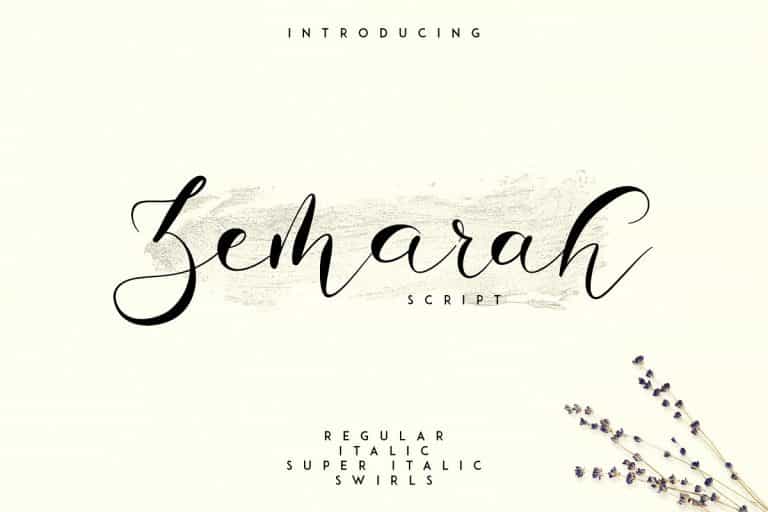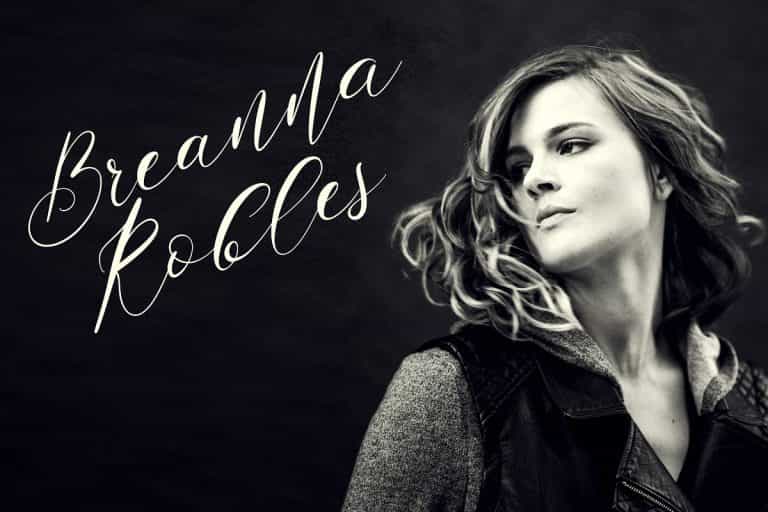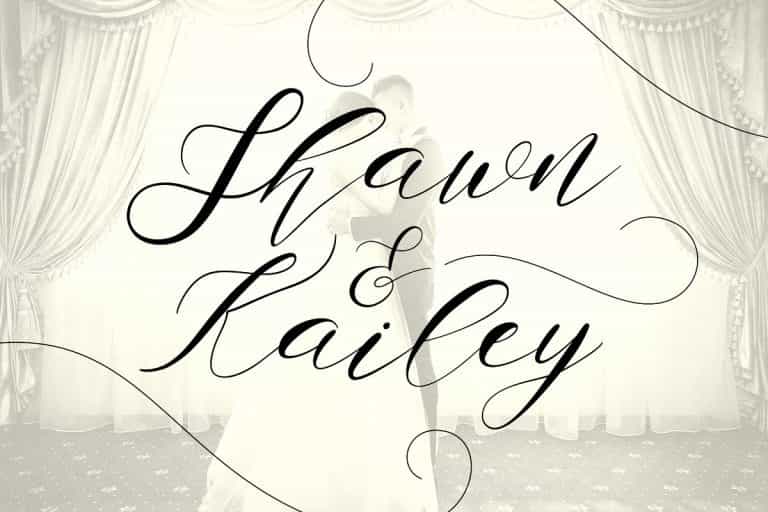
Zemarah Font is a new, clean and handmade calligraphy font made by VPcreativeshop. A hand written like that is just and classy font. Zemarah is not just a simple, elegant typeface with 3 styles but it also has swirls and multilingual support. It is a very universal font which can be used in both large and small sizes. Zemarah is the best choice for branding projects, home-ware designs, product packaging, magazine headers – or just as a stylish text overlay to any background image.